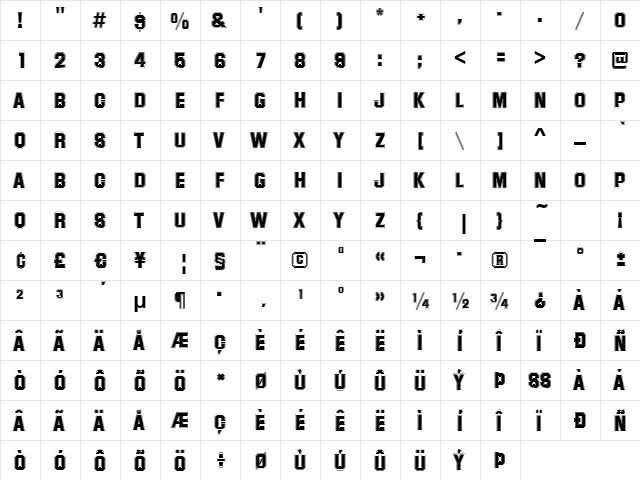
Summit Regular
Design Context for Summit Typeface
Summit is a composed and adaptable typeface that performs quietly and consistently across a wide range of design contexts.